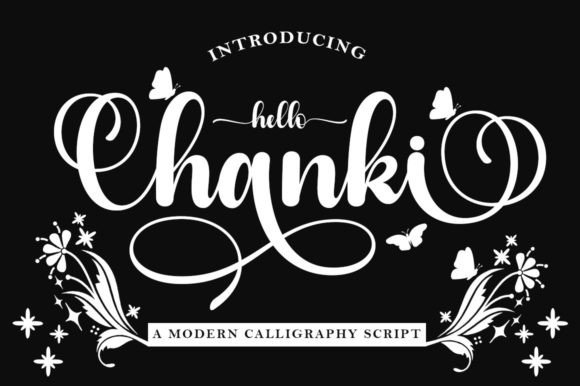
Behold Hello Chanki, a majestic script font that blends timeless elegance with contemporary charm, curated by the talented Diorde Studio. Prepare to unleash your creativity and elevate your designs with this captivating masterpiece.
Hello Chanki's graceful strokes and elegant curves evoke a sense of sophistication and luxury. Its flowing lines create a visual harmony that draws the eye, making it perfect for branding projects, invitations, web graphics, cards, and more. Whether you're a seasoned designer or just starting out, Hello Chanki will effortlessly enhance your creations and leave a lasting impression.
Journey into the world of Hello Chanki and discover a font that's not just visually stunning but also incredibly versatile. Its adaptability knows no bounds, making it suitable for a wide range of projects. Envision the possibilities: craft enchanting logos that exude professionalism, design wedding invitations that radiate romance, create social media posts that pop with personality, or let your imagination run wild in the realm of web graphics and branding.
At Diorde Studio, we meticulously crafted Hello Chanki to provide you with a font that's both aesthetically pleasing and functionally exceptional. Its beauty is undeniable, yet it remains highly legible and easy to read, ensuring that your message is conveyed clearly and effectively. Whether you're crafting digital content or printed materials, Hello Chanki delivers an unparalleled user experience.
As you delve into Hello Chanki's depths, you'll uncover a font that's not just a tool but a true extension of your creativity. Allow its graceful strokes to guide your designs towards greatness, and let your imagination soar as you create compositions that captivate and inspire. Join the ranks of design enthusiasts who have embraced Hello Chanki and witnessed the transformative power it brings to their projects.
Dare to embrace Hello Chanki, and embark on a creative journey like no other. Its beauty, versatility, and functionality will undoubtedly elevate your designs to new heights. Are you ready to unlock the limitless potential that awaits? Dive into the world of Hello Chanki today and let your creativity flourish!